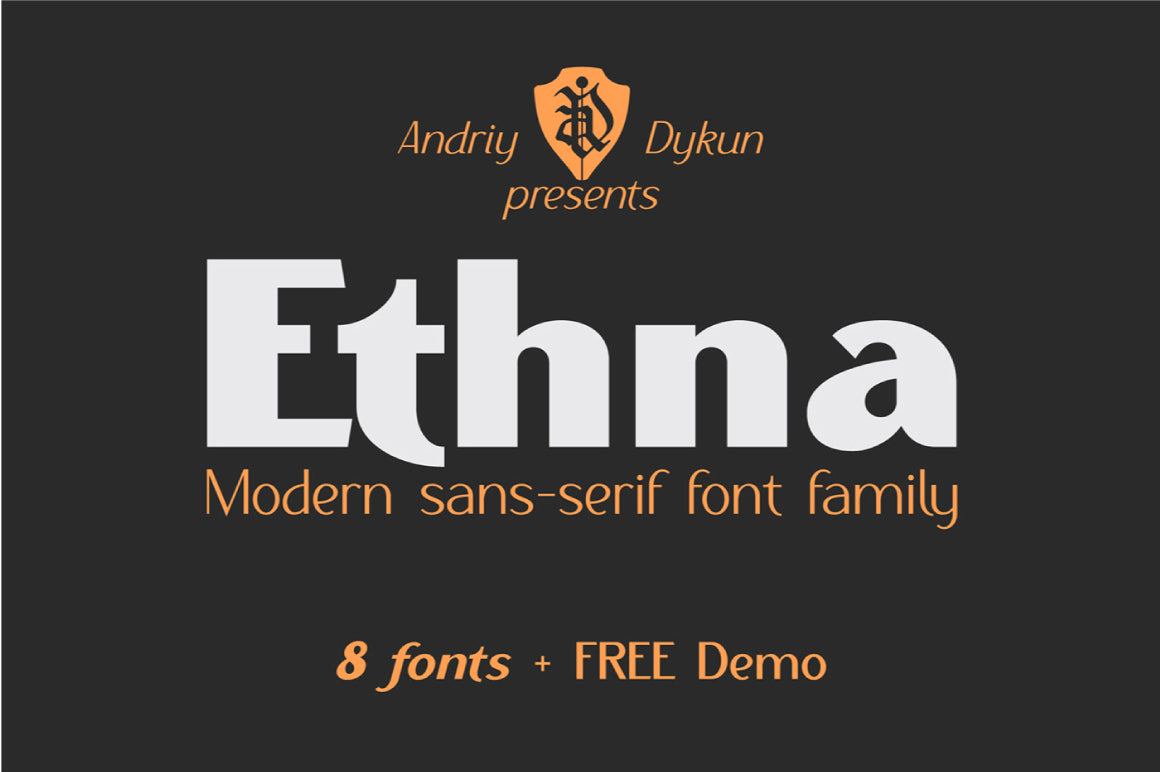
Free Ethna Light Sans Serif Font
Download and enjoy this free ethna light sans serif font. Cool typeface to showcase your designs in a modern way. Download this typeface from the original source of NREY. Showcase your designs like a graphic design pro by adding a new touch with this fancy font.